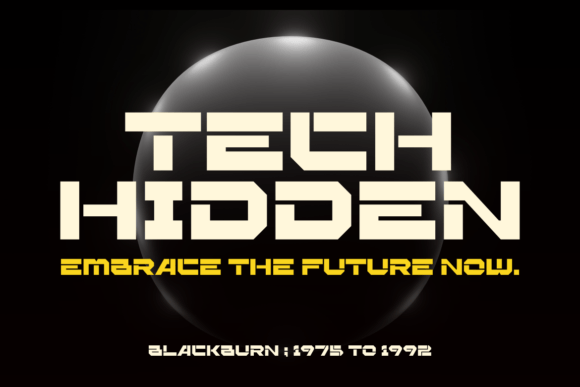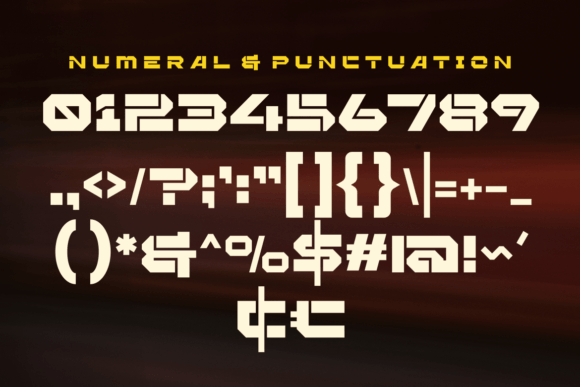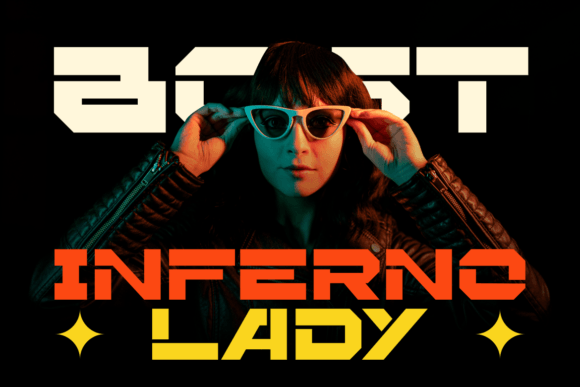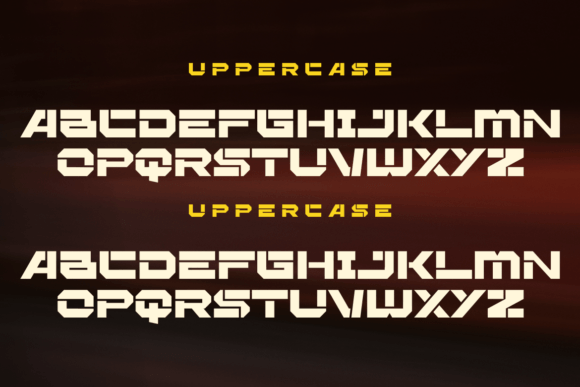
The Futuristic Charm of Gober Font: A Designer’s Delight
I still remember the time I was working on a project for a tech startup, and I was struggling to find the perfect font that would capture the essence of their innovative spirit. The client wanted something modern, sleek, and futuristic, but I was coming up blank. That’s when I stumbled upon the Gober font, and it was love at first sight! ✨
Gober is a modern futuristic display font that embodies the digital era and technological advancements. Its sharp lines, geometric letter shapes, and futuristic elements make it a perfect fit for projects related to technology, robotics, science, and modern lifestyle.
An Honest Review of Gober Font
What I Love About Gober Font
- ✨ Unique and distinctive design: Gober font stands out from the crowd with its futuristic and modern look.
- ✅ Highly versatile: Suitable for various design projects, from logos and website designs to posters and more.
- 💻 Perfect for tech-related projects: Gober font is a great fit for projects that require a futuristic and technological feel.
- 🎨 Great for creative freedom: The font’s geometric shapes and lines offer a lot of room for creative experimentation.
While Gober font is amazing, there are a few things to keep in mind: ⚠️
- 🤔 Limited use for body text: Due to its futuristic design, Gober font might not be the best choice for long-form content or body text.
- ⚠️ May require adjustments for certain languages: Some languages may require additional glyphs or adjustments to ensure proper rendering.
- Explore the font’s OpenType features, such as glyphs and stylistic alternates, to add more variety to your design.
The Story Behind Gober Font
Gober font was designed by a team of designers who were inspired by the rapid advancements in technology and the digital era. They wanted to create a font that would reflect the futuristic and innovative spirit of modern technology. The designers experimented with geometric shapes and lines to create a unique and distinctive font that would stand out in the design world.
Q: What is Gober font?
A: Gober font is a modern futuristic display font designed for use in various design projects, including logos, website designs, posters, and more.
Q: Is Gober font suitable for body text?
A: While Gober font is amazing, it’s not the best choice for long-form content or body text due to its futuristic design.